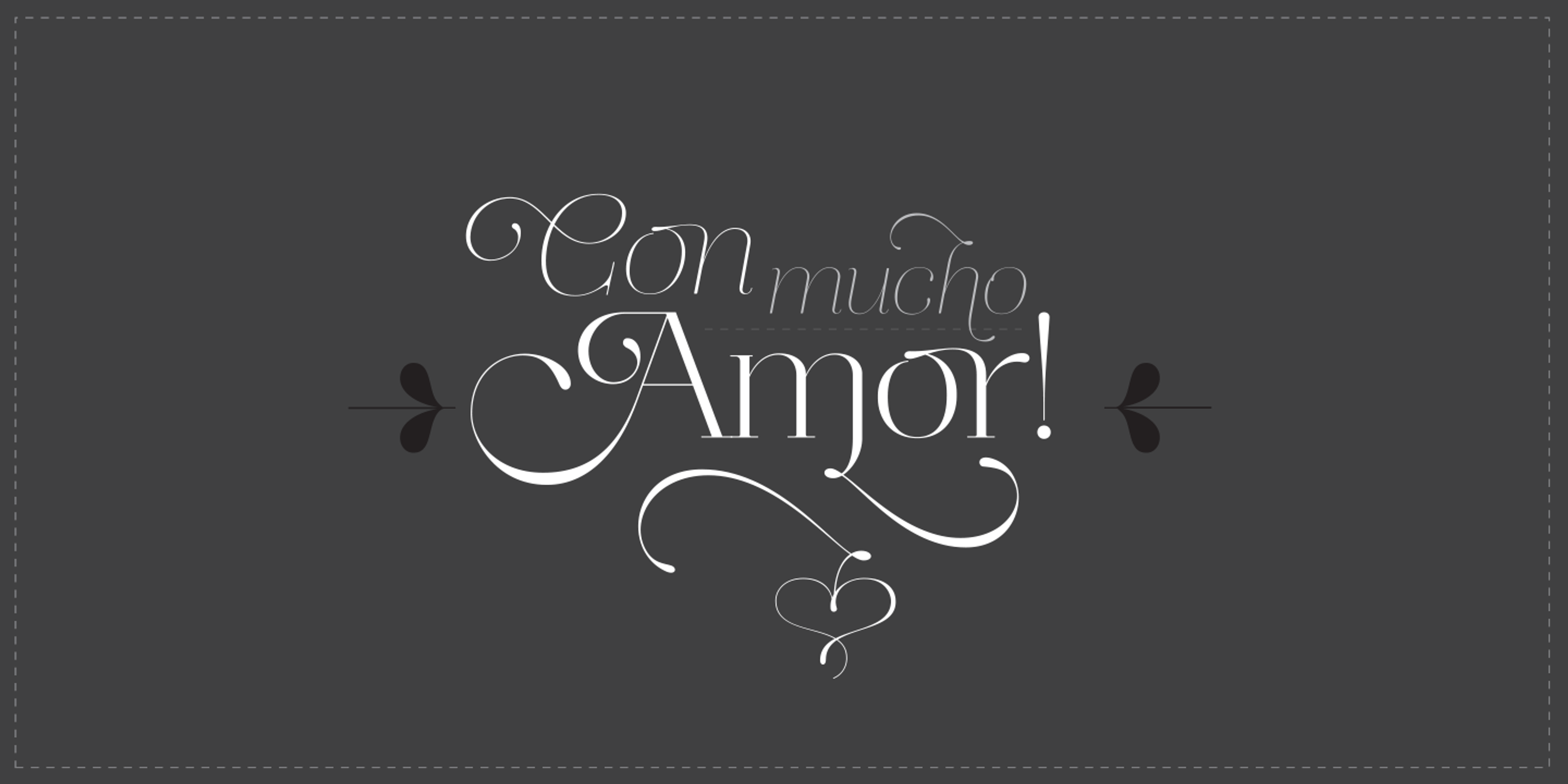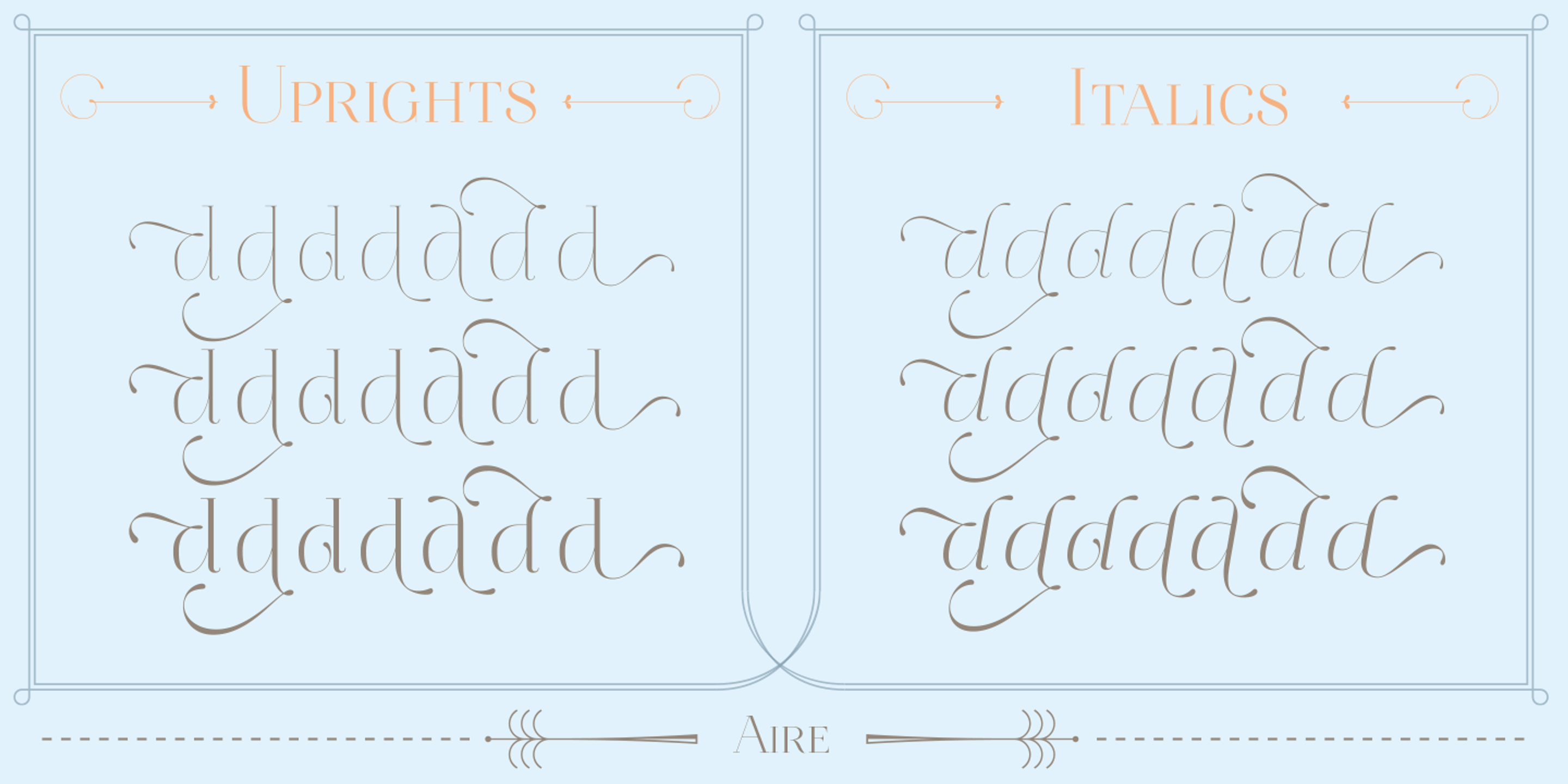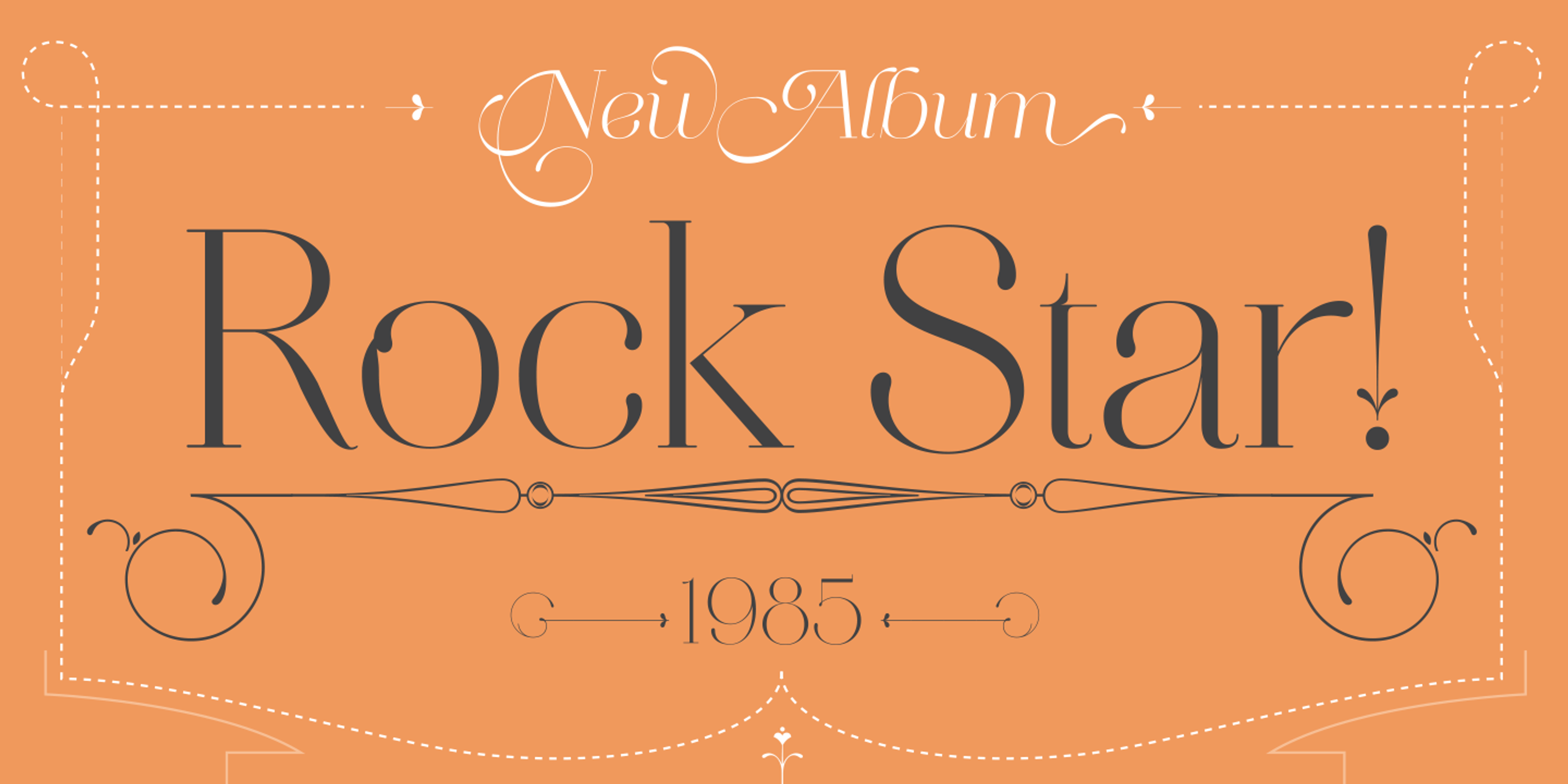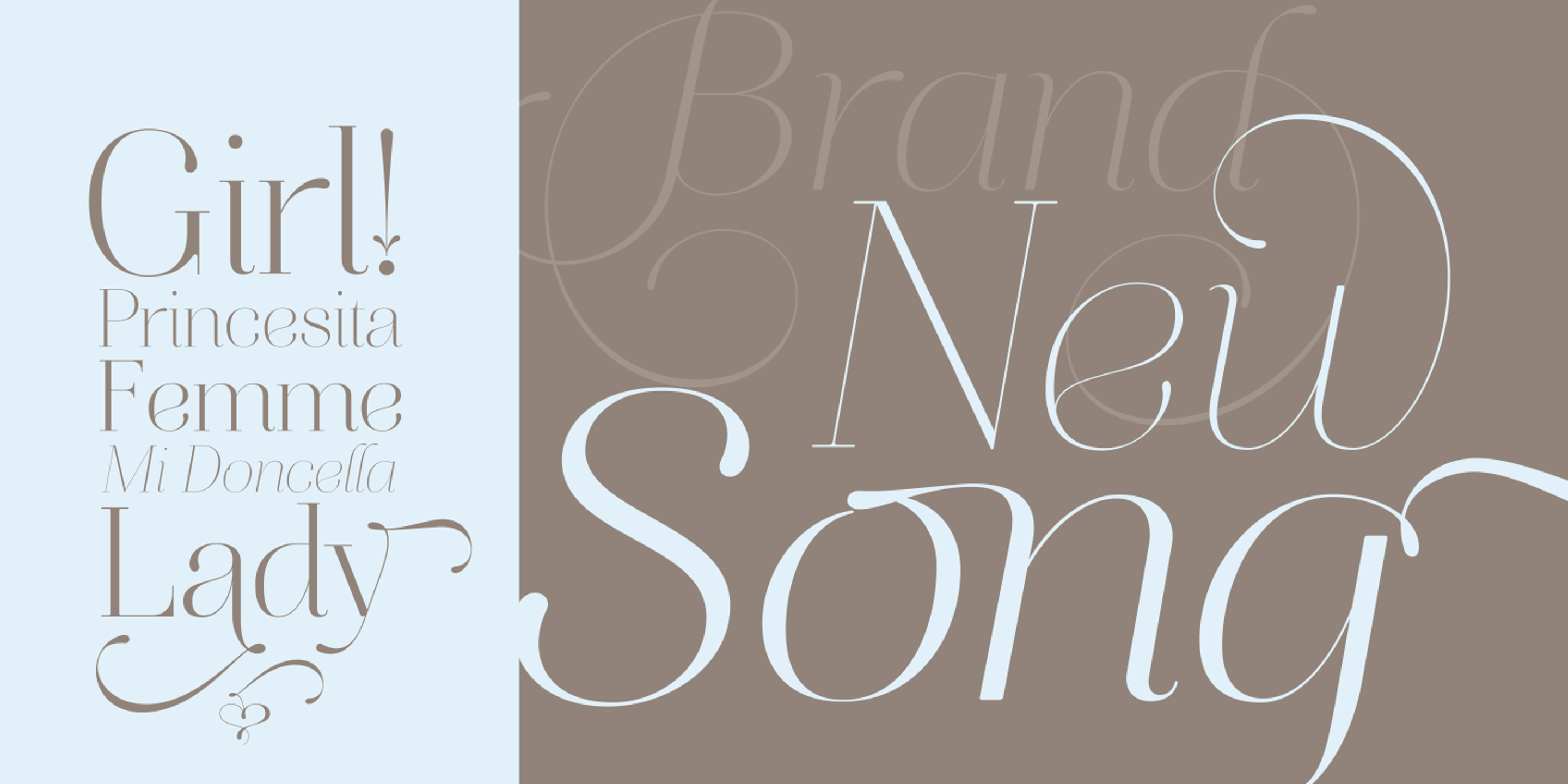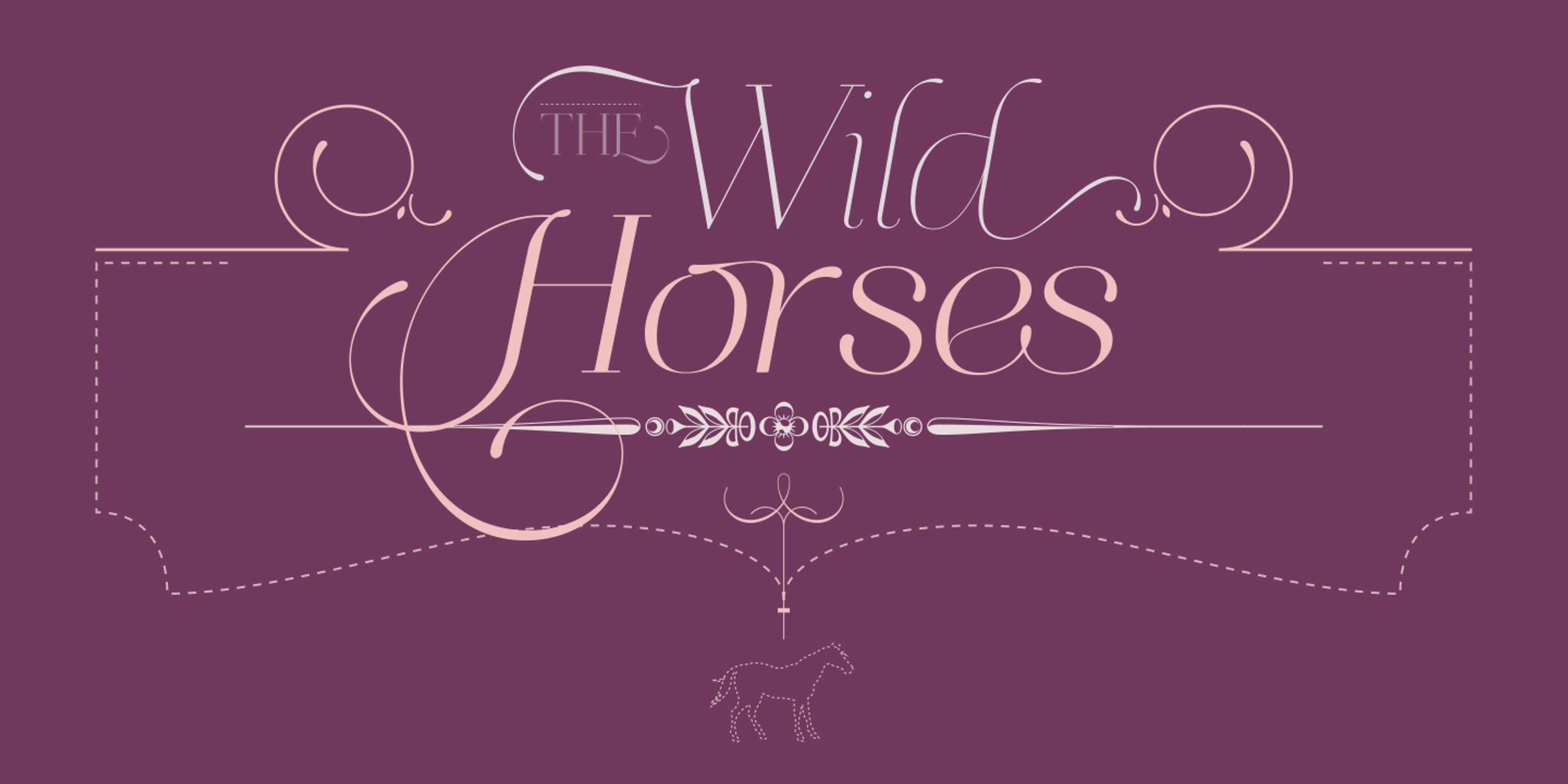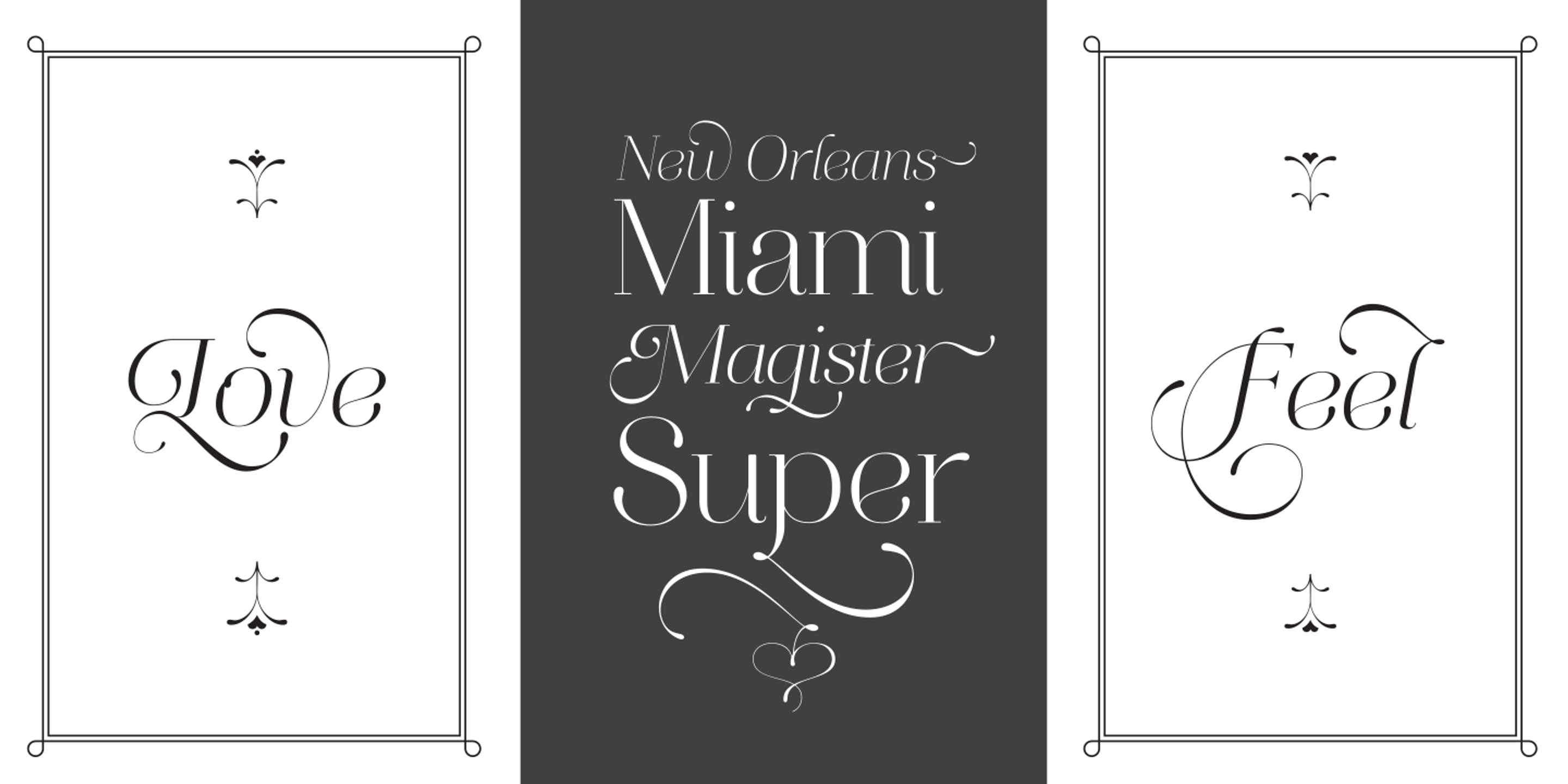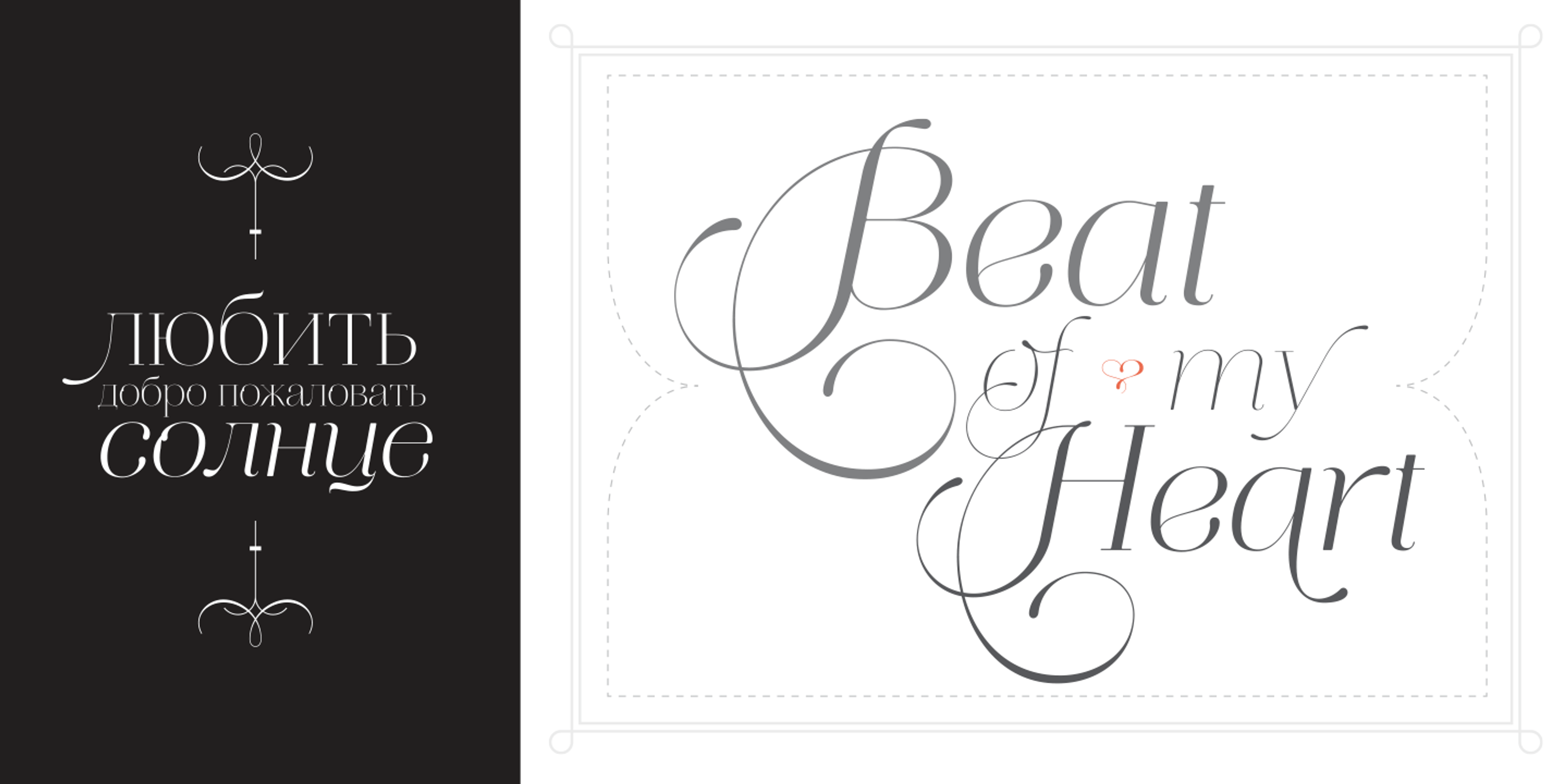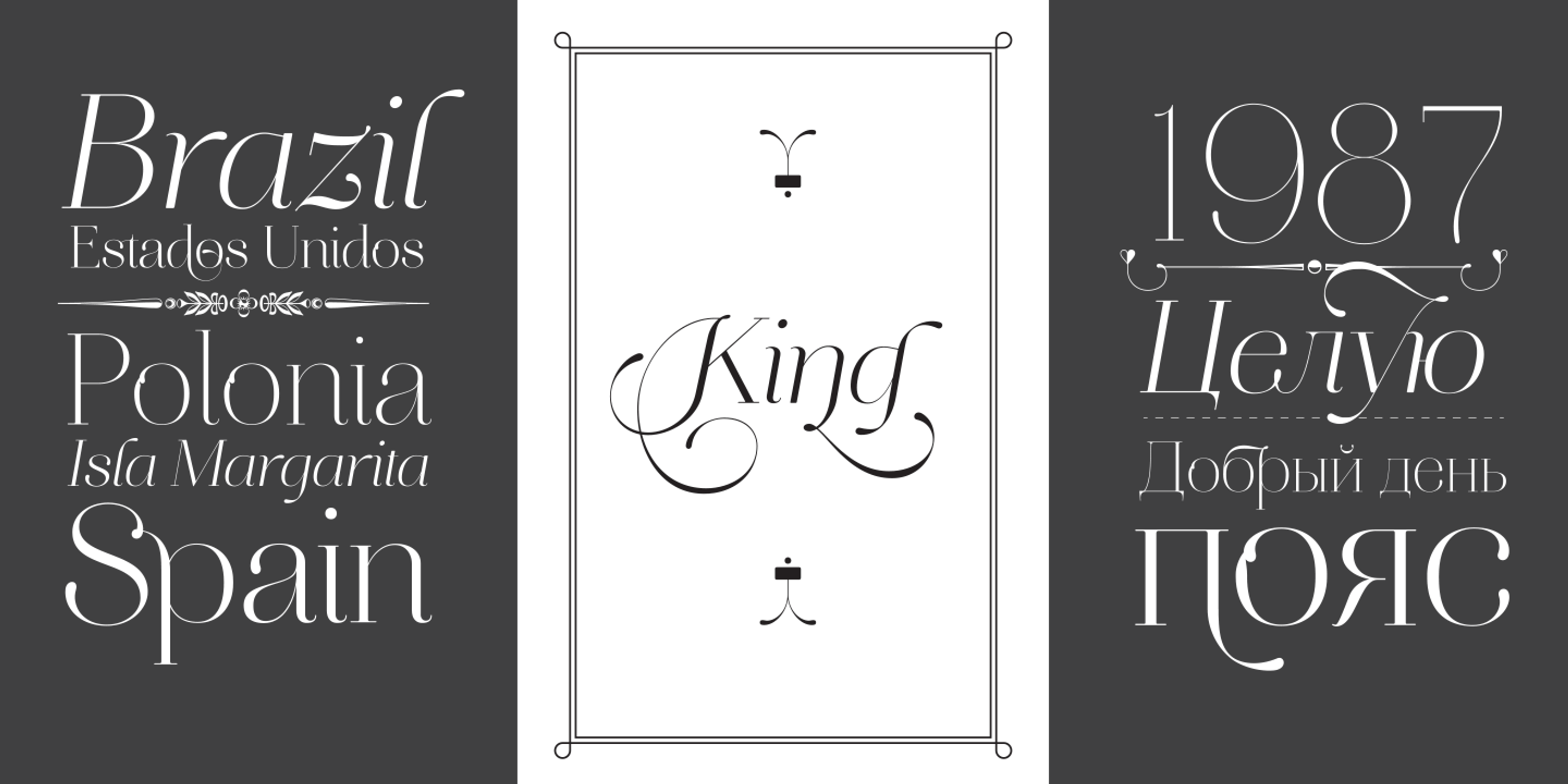
Aire is a delicately sophisticated serif family. It brings elegance and lightness, something softer, more fragile, and even a little playful to display typography. The slight contrast, sculptural curves, open shapes, and whimsical alternates give a graceful balance of refinement and flourish with enough personality to carry an entire composition. Whether for dazzling editorial headlines, a sparkling title sequence, or shimmering packaging — Aire is the right choice, par excellence!
OpenType Features
• Common Ligatures
• Discretionary Ligatures
• Fractions
• Small Capitals
• Stylistic Alternates
• Stylistic Sets
• Swashes
• Titling Capitals